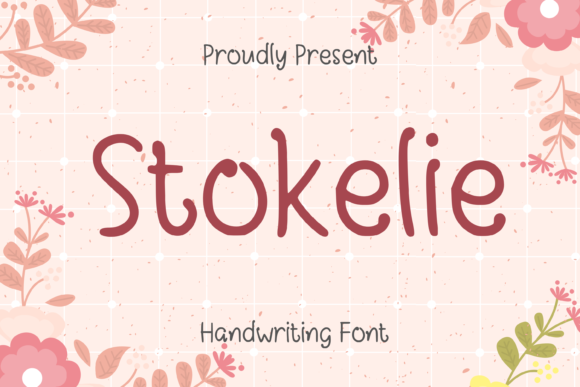
Prepare to be captivated by Stokelie, an enchanting script font that will ignite your creativity and leave you spellbound. Its delicate strokes, elegant curves, and harmonious balance will transform your designs into masterpieces.
With Stokelie, you'll unveil a world of possibilities, from heartfelt love letters to captivating social media posts that dance across the screen. Its versatility knows no bounds, lending its charm to product packaging, invitations, and even the adornment of tattoos.
Experience the magic of Stokelie's flowing characters as they intertwine, creating an alluring rhythm that will captivate your audience. Whether you're an artist yearning for inspiration or a designer seeking a touch of magic, Stokelie is the font that will ignite your imagination.
Step into the realm of Stokelie and witness how its beauty breathes life into your creations. Embrace the elegance, revel in the flow, and let your imagination soar to new heights. Stokelie is not just a font; it's an invitation to embark on an extraordinary journey of self-expression.